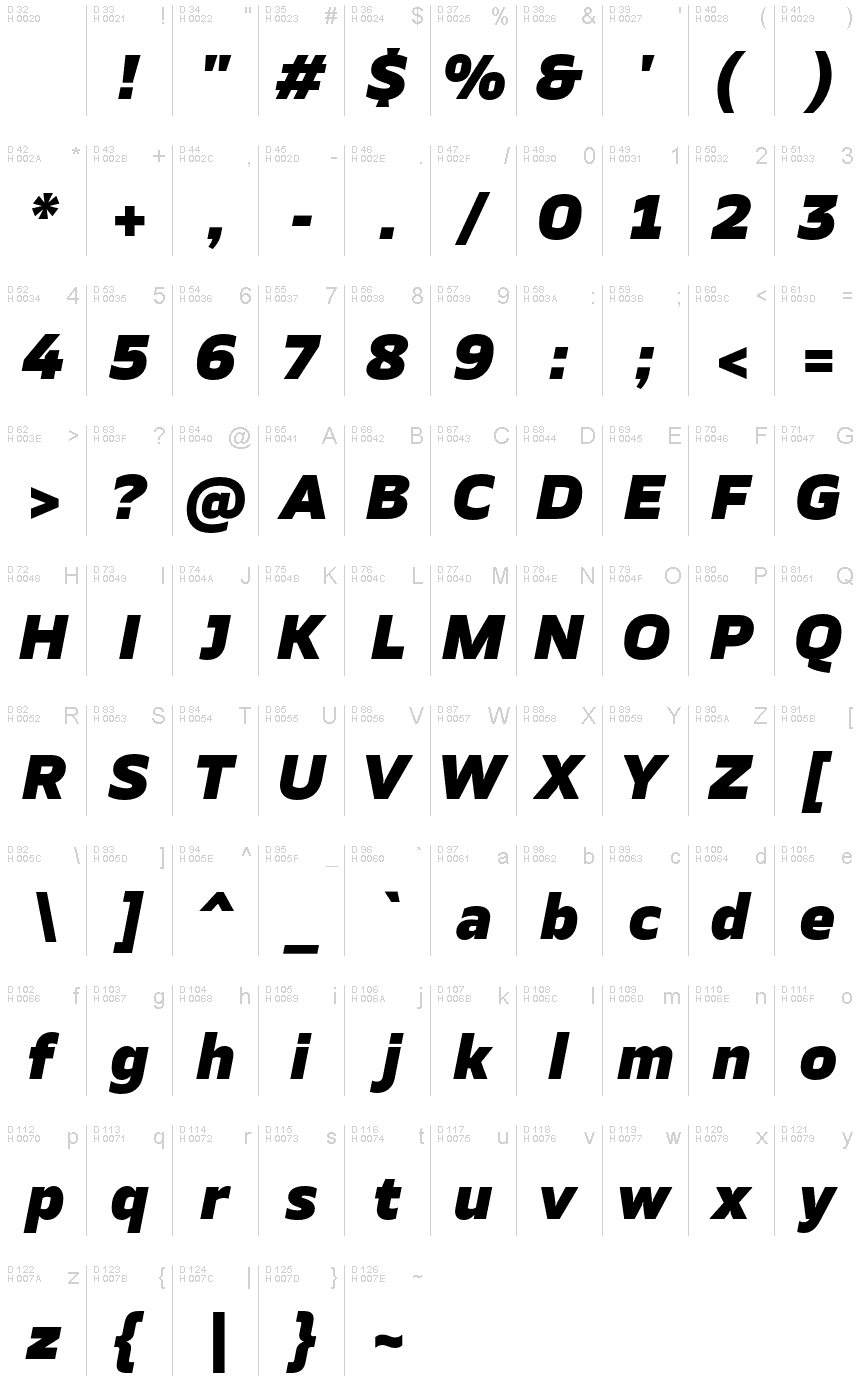
TT Severs Trial Black Italic
TT Severs Black Italic is the perfect font for projects that require a bold and modern look. This ultra-bold, semi-expanded sans serif typeface by TypeType Foundry is ideal for branding materials, advertising campaigns, and website design. The italicized style adds an edgy touch to any project, while the elegant curves of the letters maintain a sense of sophistication. Whether you're creating a high-end fashion label or an innovative tech startup, TT Severs Black Italic will make your message stand out with its commanding presence and eye-catching style.